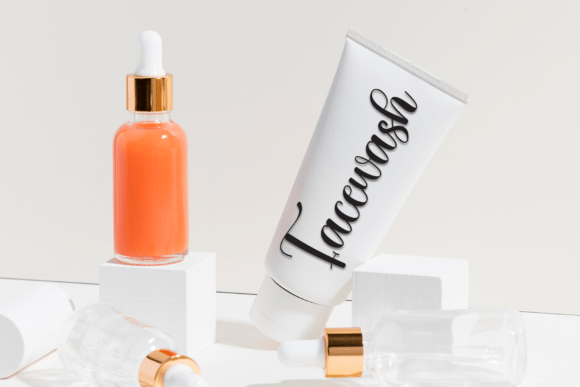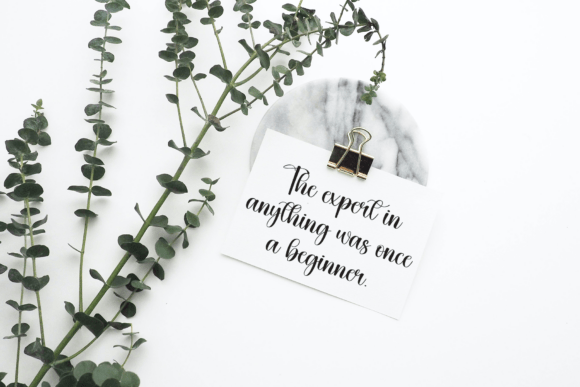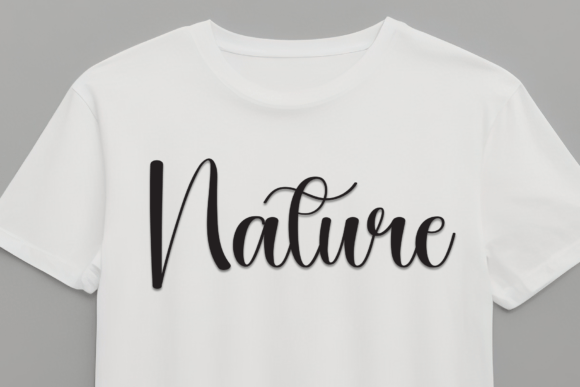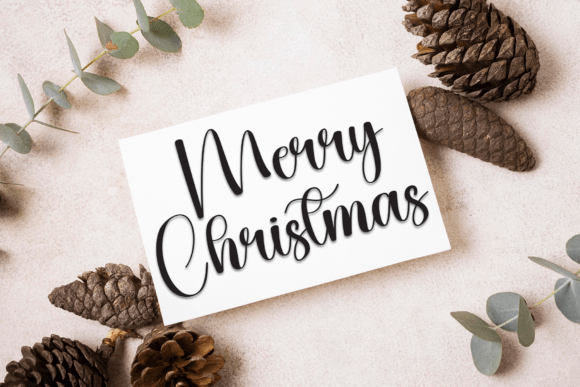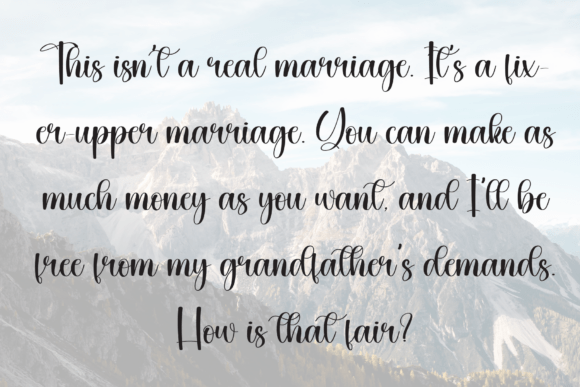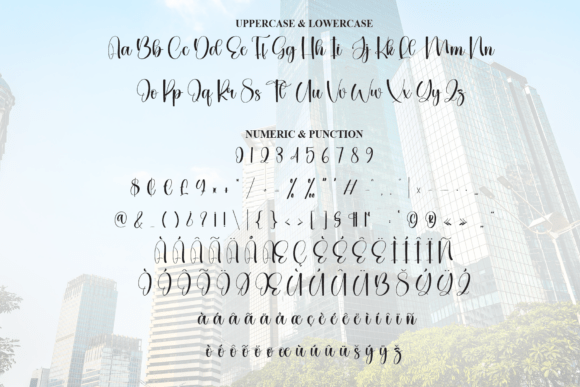
Introducing Building Font: Elevate Your Designs with Elegance and Sophistication
In the world of typography, a font can make or break a design. For designers and crafters seeking to add a touch of luxury and modernity to their projects, Building Font is an exceptional choice. This stylish script font is designed to exude elegance and contemporary charm, making it perfect for a wide range of applications.
The Beauty of Building Font
Building Font boasts graceful strokes, fluid curves, and meticulously crafted letterforms that capture the essence of hand-drawn calligraphy with a modern twist. The font’s natural flow and polished details make it an excellent choice for designers looking to add a refined and sophisticated touch to their work. Whether you’re creating logos, invitations, packaging, or social media graphics, Building Font is sure to elevate your designs to the next level.
Key Features of Building Font
- Elegant and Contemporary Design: Building Font features a stylish script design that exudes elegance and modernity, making it perfect for designs that require a touch of sophistication.
- Graceful Strokes and Fluid Curves: The font’s carefully crafted letterforms and fluid curves create a natural flow that is both visually appealing and engaging.
- Versatility: Building Font is ideal for a wide range of applications, including logos, invitations, packaging, and social media graphics.
- Polished Details: The font’s polished details make it perfect for designs that require a high level of sophistication and elegance.
Why Choose Building Font?
With so many fonts available, why choose Building Font? The answer lies in its unique combination of elegance, versatility, and visual appeal. Here are just a few reasons why Building Font stands out from the crowd:
- Unique and Memorable: Building Font’s elegant design makes it perfect for creating unique and memorable designs that stand out from the crowd.
- Easy to Read: Despite its elegant design, Building Font is easy to read, making it perfect for body text and headlines.
- Scalable: Building Font is designed to be scalable, making it perfect for use in a variety of applications, from business cards to billboards.
Using Building Font in Your Designs
Building Font is incredibly versatile and can be used in a wide range of applications. Here are just a few ideas to get you started:
- Logos and Branding: Use Building Font to create elegant and sophisticated logos that reflect your brand’s values and personality.
- Invitations and Stationery: Add a touch of luxury to your invitations and stationery with Building Font’s elegant design.
- Packaging: Use Building Font to create eye-catching packaging that stands out on store shelves.
- Social Media Graphics: Elevate your social media graphics with Building Font’s modern and sophisticated design.
In conclusion, Building Font is an exceptional choice for designers and crafters seeking to add a touch of elegance and sophistication to their designs. With its unique combination of elegant design, versatility, and visual appeal, Building Font is sure to elevate your designs to the next level. Whether you’re creating logos, invitations, packaging, or social media graphics, Building Font is the perfect choice.